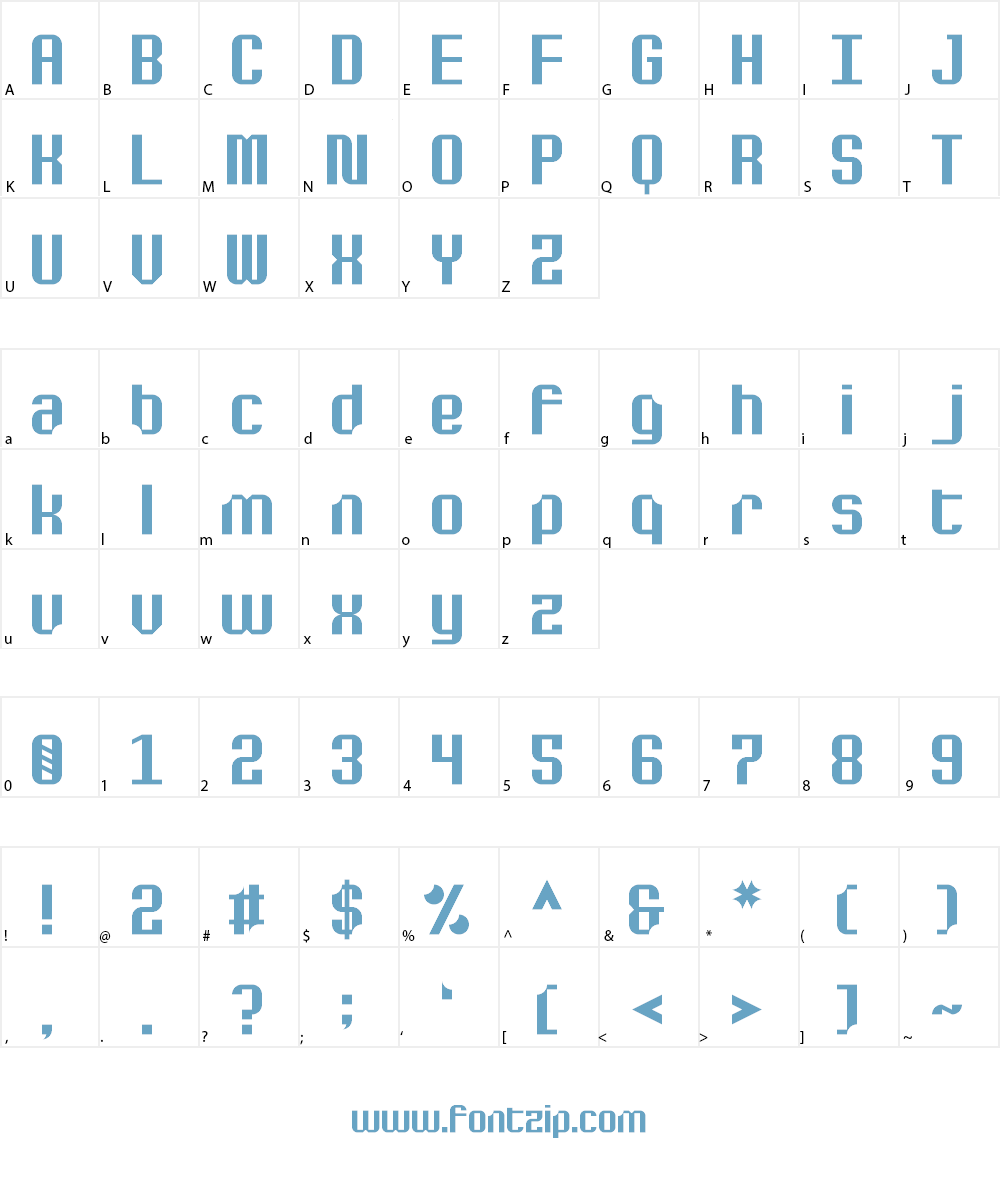
Supports Dutch and English only... FOR NOW!
This font used to be a normal Decolike... until someone decided to chow down on it! They seemed to prefer the taste of spurs, as all of them have been bitten off, leaving only semicircular impressions.